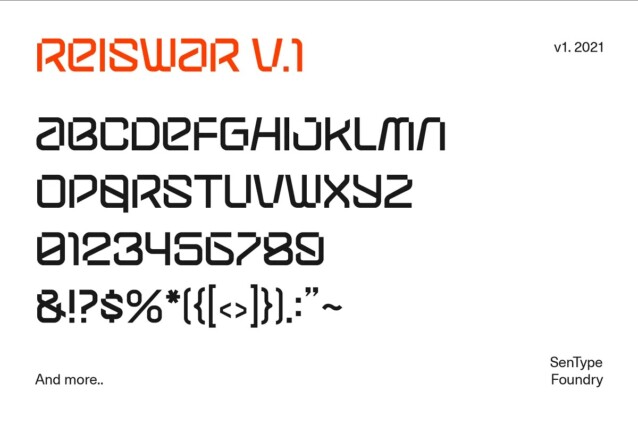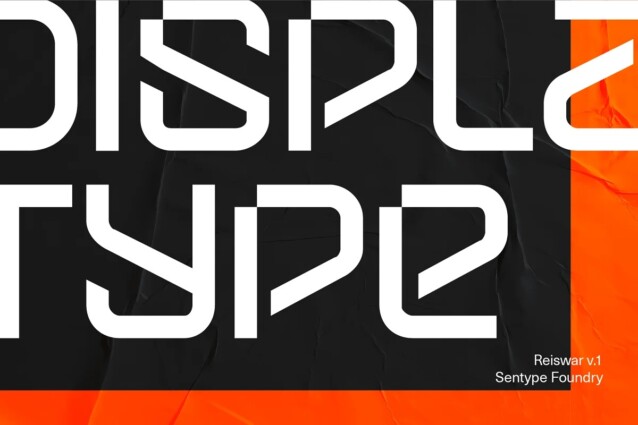
Reiswar Font
Reiswar Font is a modern san serif font that gives a clean, minimalist and futuristic impression. Made from font designer named sentype. Reiswar is techno, sporty and modern type that suit for your logo design project and also best for H1 text title for poster, website, and animation.